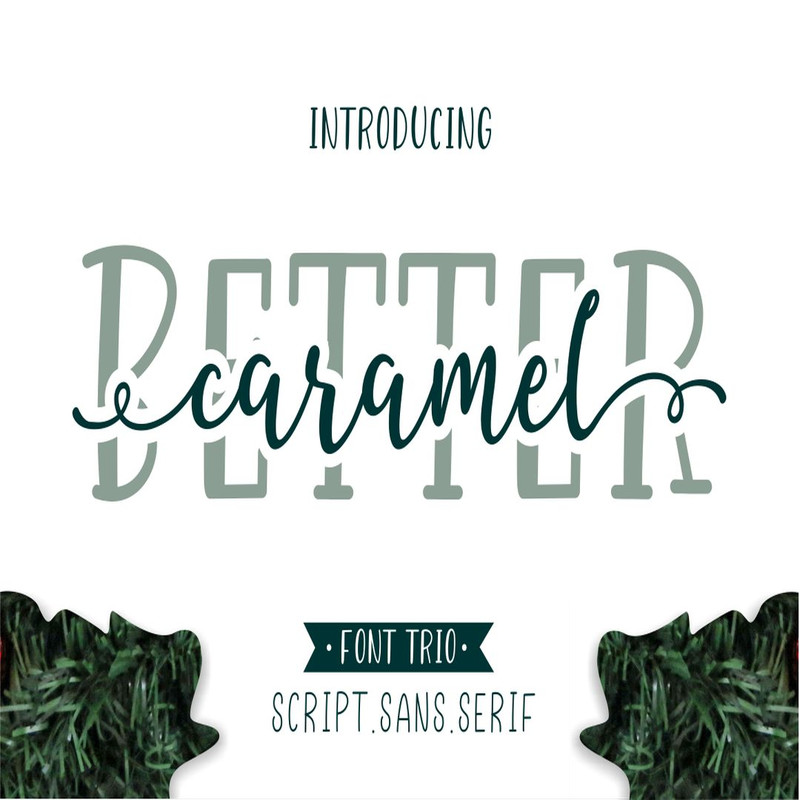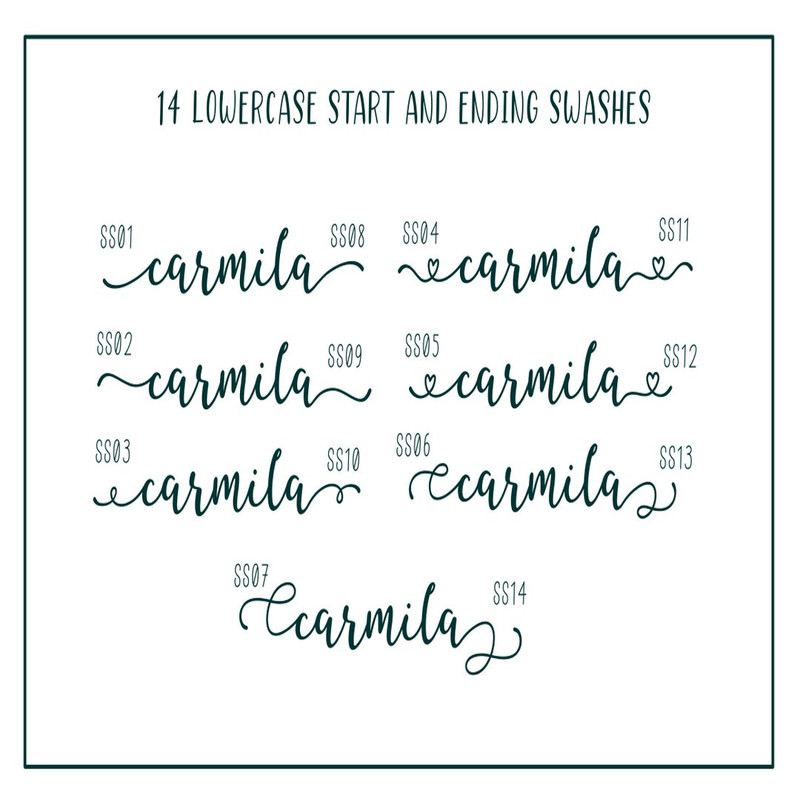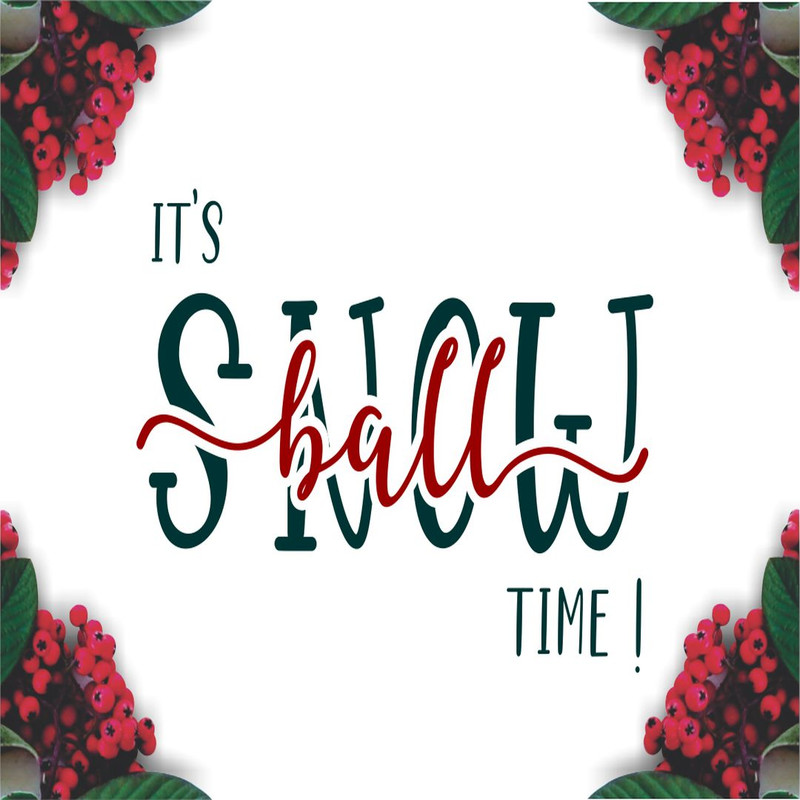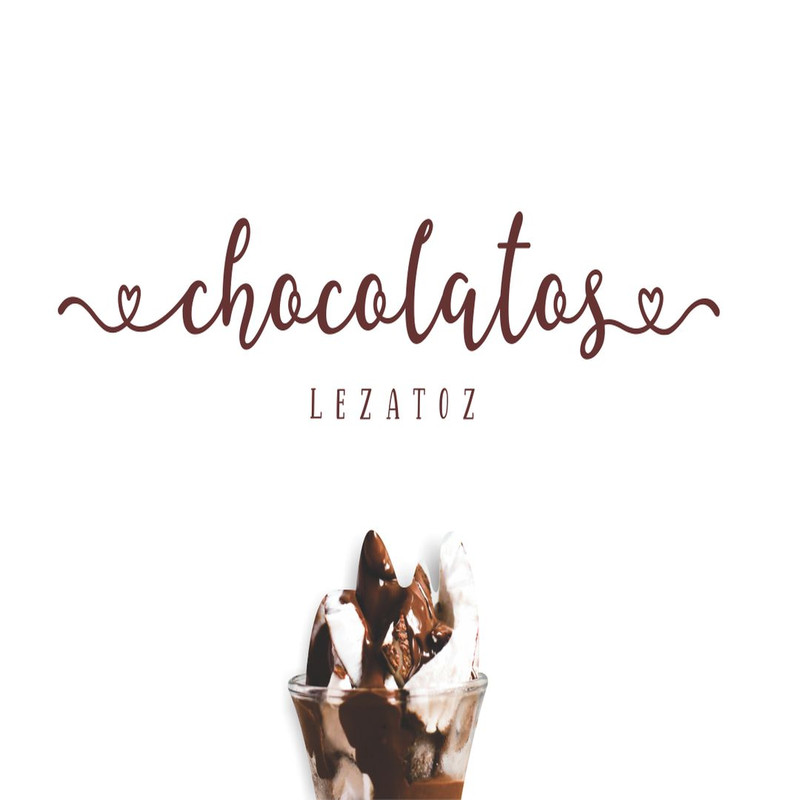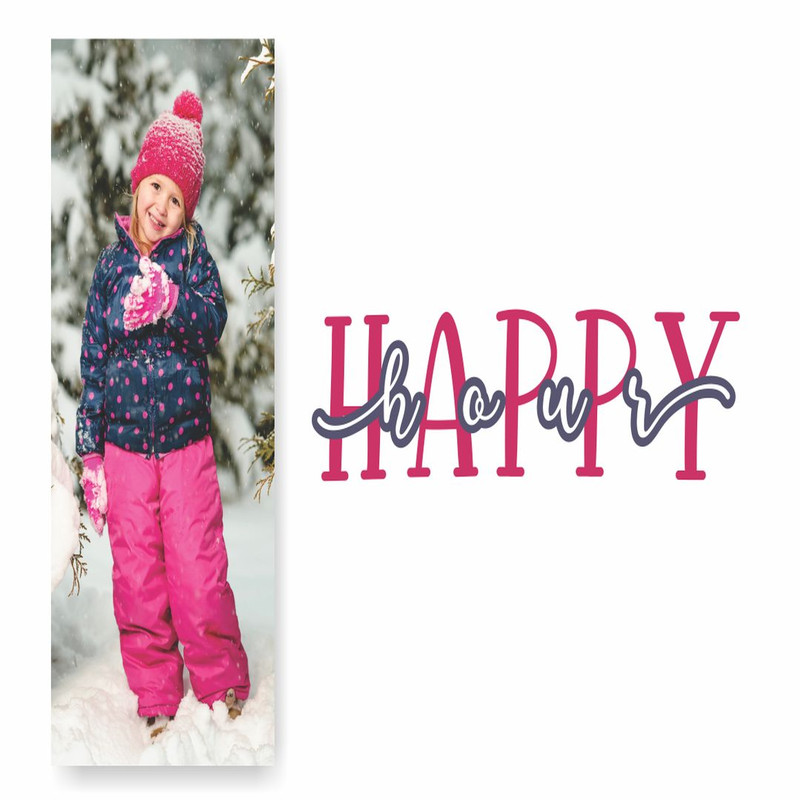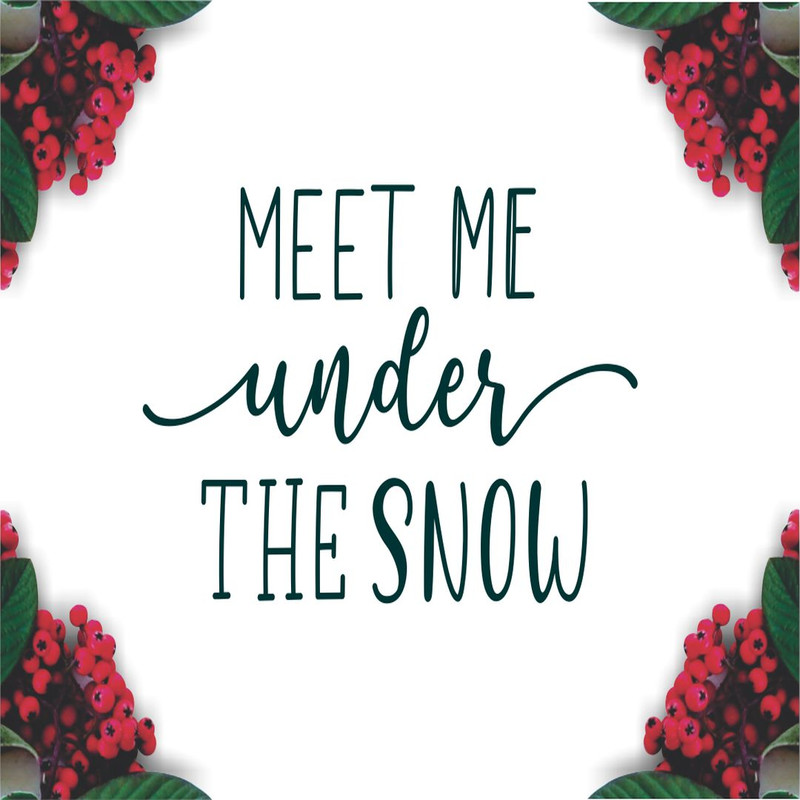
Better Caramel // Font Trio Trending Fonts - Digital Font
The Better Caramel is a beautiful font trio. It comes with 7 styles which can be paired together perfectly! It gives you the opportunity to create unique designs, every time you use it.
Better Caramel comes with Better Caramel script that contain 14 lowercase start and ending swashes, Better Caramel sans ( Regular, Bold, Hollow ), and Better Caramel serif ( Regular, Bold, Hollow )